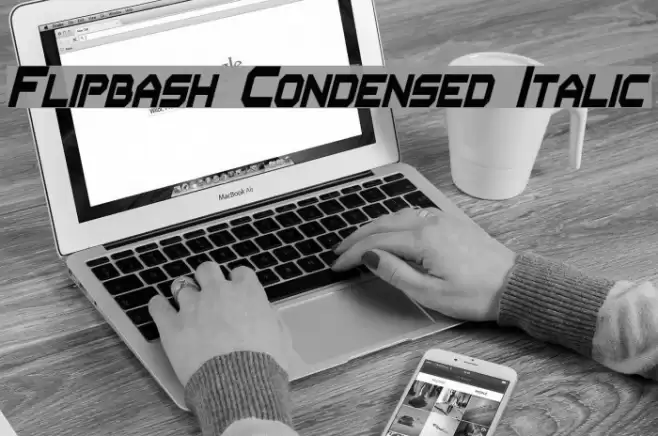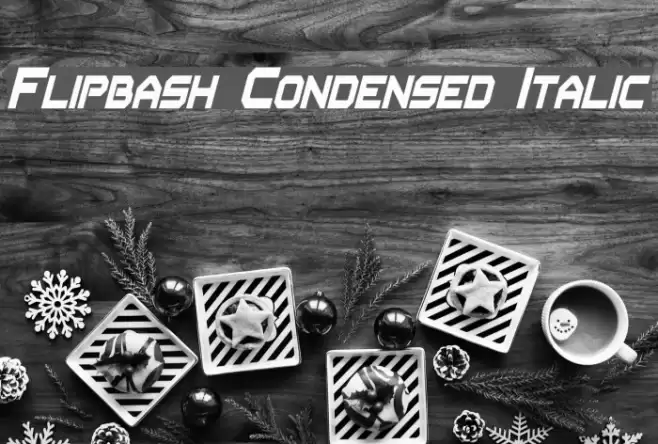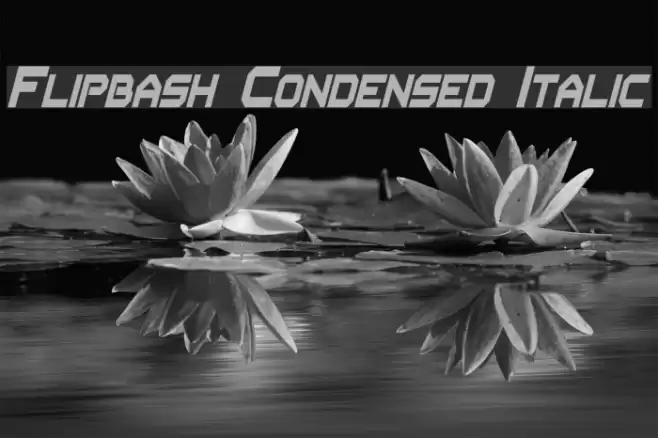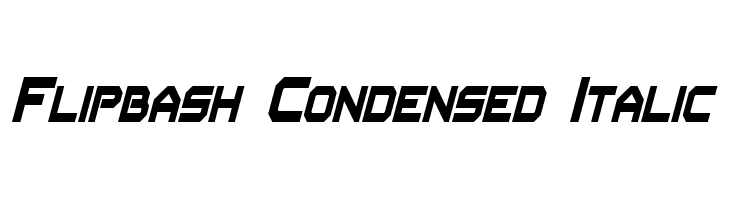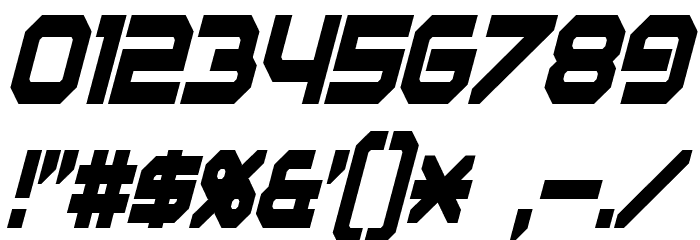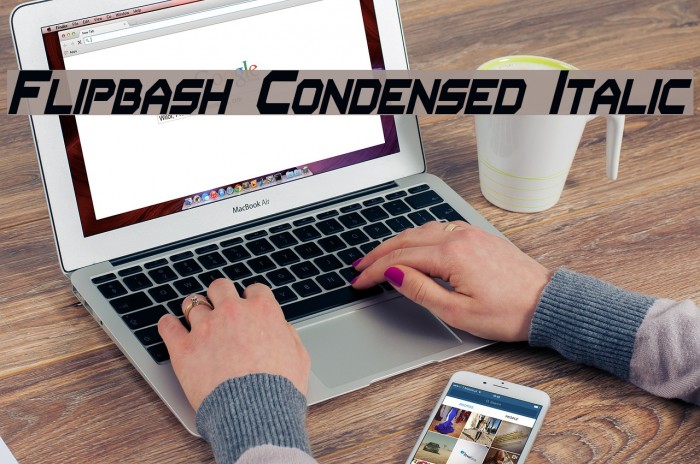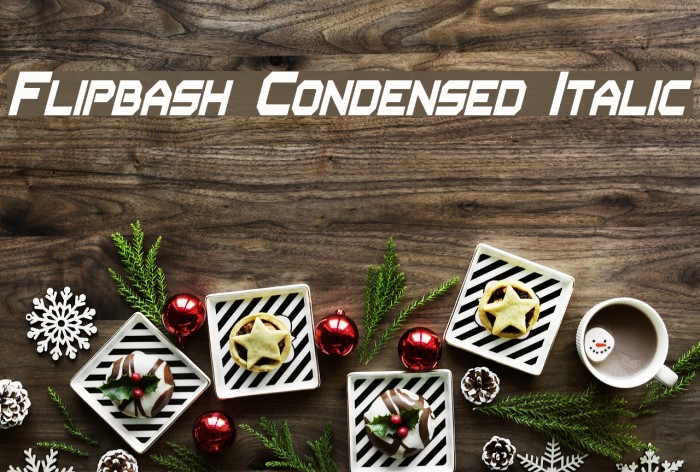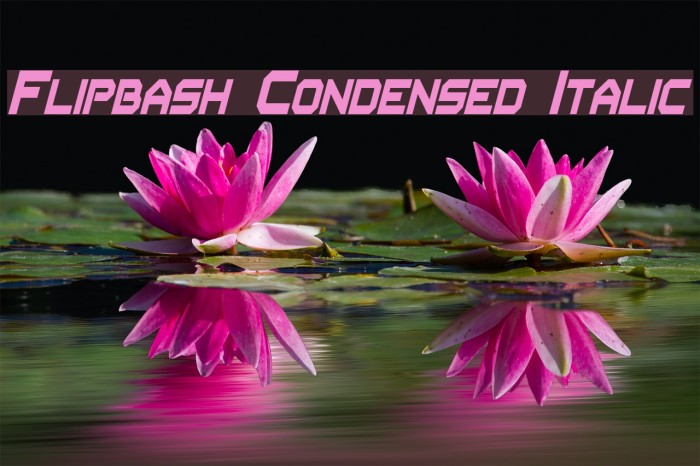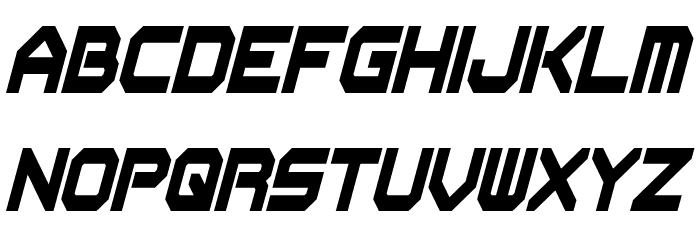
Flipbash Condensed Italic Font
Flipbash Condensed Italic Description
This font features a bold and dynamic design with a strong geometric influence. The characters are sharply angled, giving a sense of movement and speed. The condensed style allows for efficient use of space, while the italic slant adds a modern and edgy feel. The strokes are thick and consistent, providing a high contrast that enhances readability and impact. The overall appearance is futuristic and sleek, making it suitable for projects that require a contemporary and energetic look.
A bold, geometric, and italic font with a modern, dynamic style from Uncategorized fonts.
- Proposed Projects: Ideal for sports branding, automotive designs, tech-related projects, and dynamic advertising campaigns.